Script fonts combine the elegance of classical calligraphy and handwriting. Script fonts Suitable for Logo, badges, greeting cards, quotes, posters, branding, name card, stationary, design title, art quote, typography, art, modern envelope lettering or book design, happening style like hand-drawn design or watercolor design theme, or any purpose to make our art/design project look pretty and trendy. Before designing or implementing any informational content, you must first choose your font. If you are looking for a more natural feel with casual touch, a good script font is your choice. Here are a few famous examples to get you started.
Sheiral Script
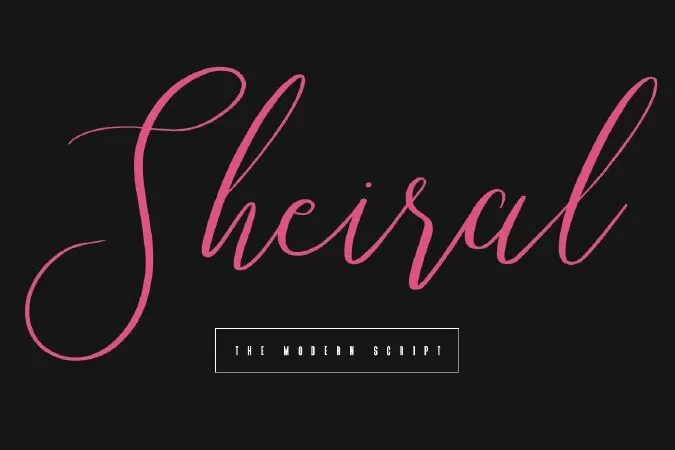
Give your designs an authentic handcrafted feel. "Sheiral Script" is perfectly suited to stationery, logos and much more.
Alexander Script Font
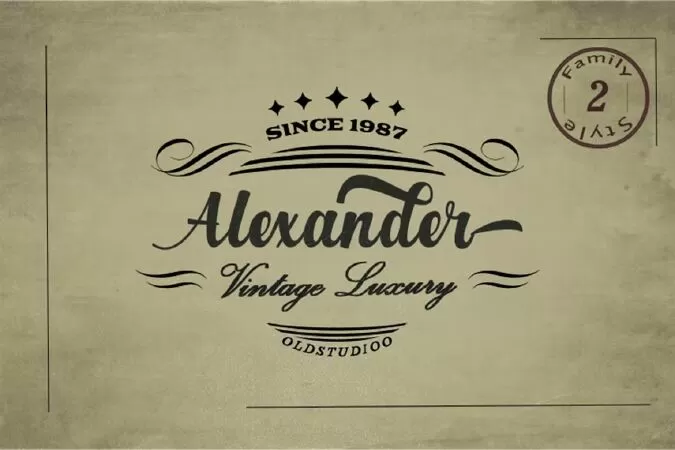
INTRODUCING...! Alexander Regular & Slant Style
Alexander is a script typeface with personality. You can use it as a logo, badge, insignia, packaging, headline, poster, t-shirt/apparel, greeting card, and wedding invitation. The flowing characters are ideal to make an attractive messages, mix and match Montana with a bunch of alternative characters to fit your project.
Casual Script Font
The Father is a casual script font with upper & lowercase letters, numbers & punctuation, ligatures, multilingual support.
Ruderules Script Font
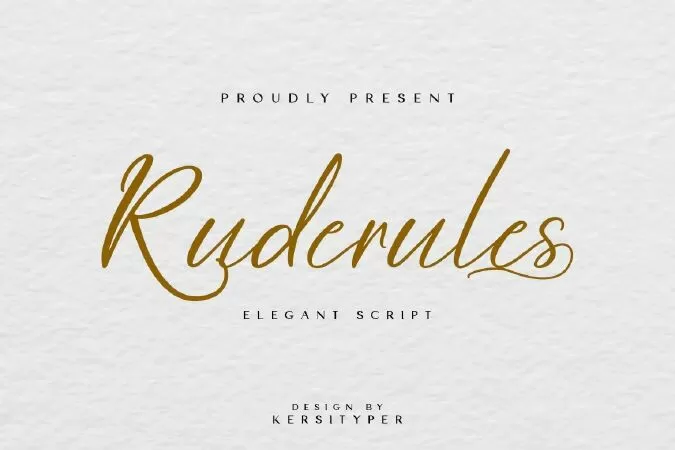
Introducing Ruderules script font. This font is perfect handwritten script for branding projects, logo, wedding designs, social media posts, advertisements, product packaging, product designs, label, photography, watermark, invitation, stationery and any projects that need handwriting taste.
Ruderules Font multilingual support: Afrikaans, Albanian, Catalan, Danish, Dutch, English, Estonian, French, Finnish, German, Icelandic, Indonesian, Italian, Malay, Norwegian, Portuguese, Spanish, Swedish, Zulu, and many more.
Vaclice Script Font
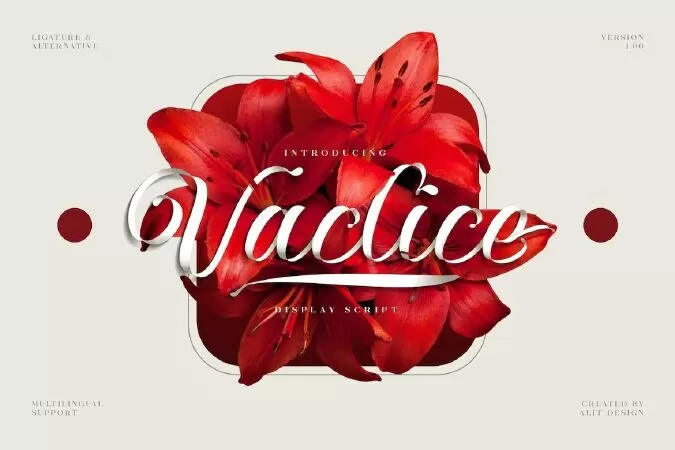
Vaclice Script Font is a very beautiful and unique signature script Font that comes with a very beautiful ligature surprise with different font characters so it is perfect for your design needs such as printed quotes, invitation cards, social media, product packaging, your website and more!
Features:
- A-Z Character Set
- Numerals & Punctuations (OpenType Standard)
- Stylistic Alternates
- Multilingual
- Ligatures